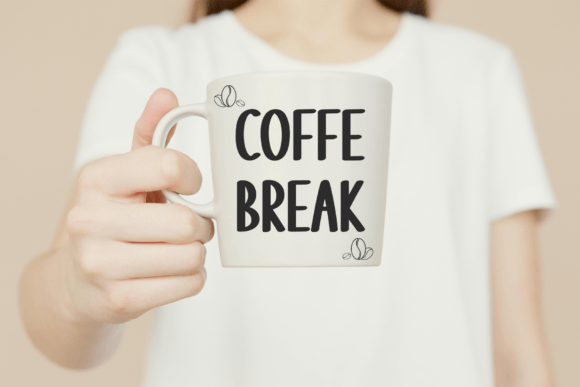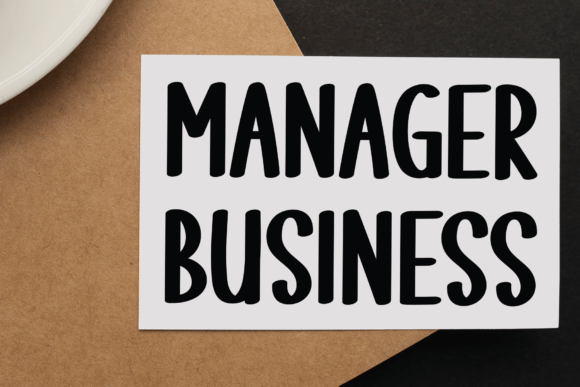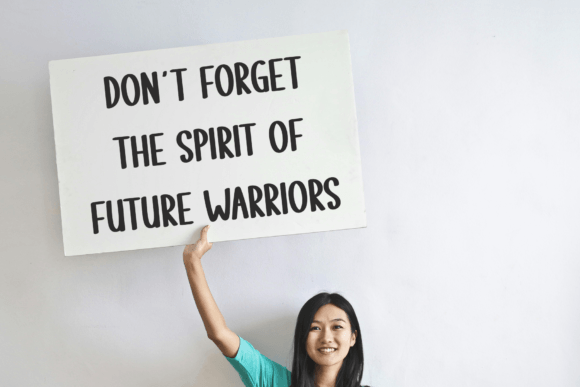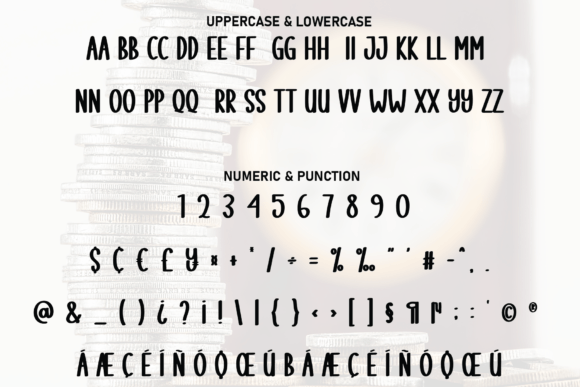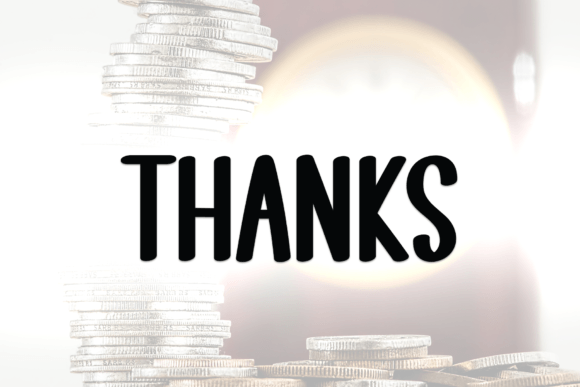
Discover the Elegance of Advantage Font: Elevate Your Designs with Timeless Style
In the world of typography, fonts play a crucial role in conveying messages, evoking emotions, and creating lasting impressions. For designers and crafters seeking a font that embodies elegance, sophistication, and a touch of timelessness, Advantage Font stands out as an exceptional choice. This neat and beautiful sans-serif font is described by an elegant touch, making it perfect for your favorite projects. Let’s dive into the distinct features of Advantage Font and explore how it can elevate your designs to new heights.
The Distinctive Charm of Advantage Font
Advantage Font boasts an incredibly distinct and timeless style that sets it apart from other fonts. Its sans-serif design ensures a clean and modern look, while the elegant touch adds a layer of sophistication. This unique blend makes Advantage Font versatile and suitable for a wide range of applications, from branding and advertising to web design and crafting.
Why Fall in Love with Advantage Font?
There are several reasons why designers and crafters will fall in love with Advantage Font:
• Elegant Touch: The font’s elegant touch gives it a distinctive character that can add a touch of luxury and sophistication to any design.
• Timeless Style: Advantage Font’s timeless style ensures that your designs remain relevant and stylish for years to come, without looking outdated.
• Versatility: Its clean and modern sans-serif design makes it versatile for use in various projects, including logos, headings, and body text.
• Readability: The font’s clear and distinct letters ensure excellent readability, making it perfect for both digital and print designs.
Use Advantage Font to Create Spectacular Designs
With Advantage Font, the possibilities are endless. Here are some ideas to get you started:
• Branding and Logos: Create stunning logos and brand identities that exude elegance and sophistication.
• Web Design: Enhance your website’s typography with Advantage Font, ensuring a modern and clean look that captivates visitors.
• Advertising: Use Advantage Font in your advertising materials to convey a sense of luxury and professionalism.
• Crafting and DIY Projects: Add a touch of elegance to your crafting and DIY projects, such as handmade cards, invitations, and posters.
Tips for Maximizing the Potential of Advantage Font
To make the most of Advantage Font, consider the following tips:
• Experiment with Sizes: Play with different font sizes to create visual hierarchy and emphasize key elements in your design.
• Combine with Other Fonts: Pair Advantage Font with complementary fonts to create a unique and harmonious typography.
• Adjust Line Spacing: Optimize line spacing to enhance readability and ensure a smooth flow of text.
• Colors and Textures: Explore different colors and textures to add depth and interest to your designs.
Advantage Font is a beautiful and elegant sans-serif font that offers a timeless style perfect for designers and crafters. Its distinct charm, versatility, and readability make it an excellent choice for a wide range of projects. By incorporating Advantage Font into your designs, you’ll be able to create spectacular and memorable designs that leave a lasting impression. So, fall in love with Advantage Font and elevate your designs to new heights of elegance and sophistication.